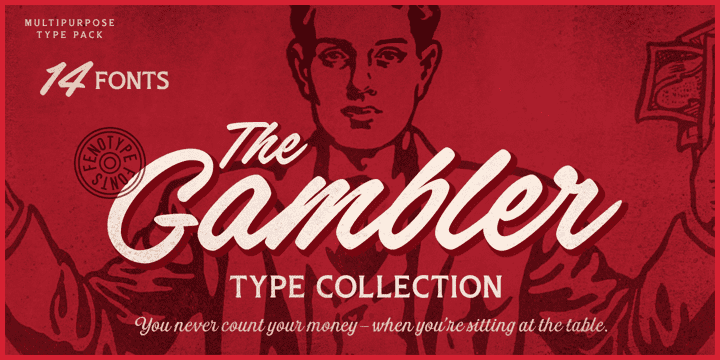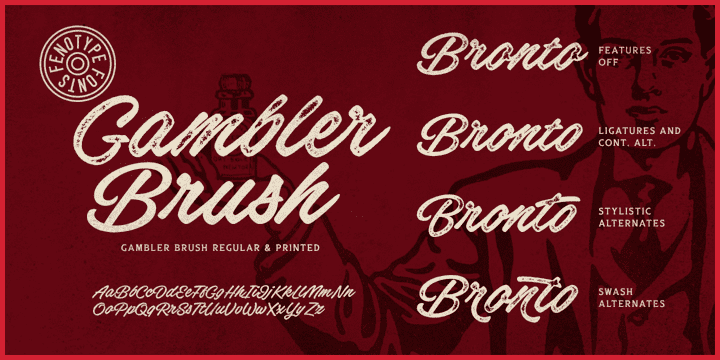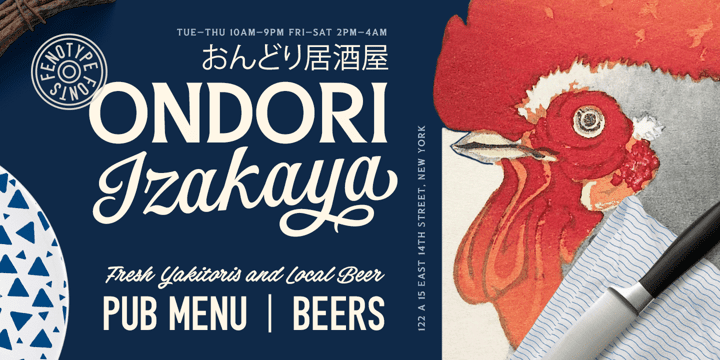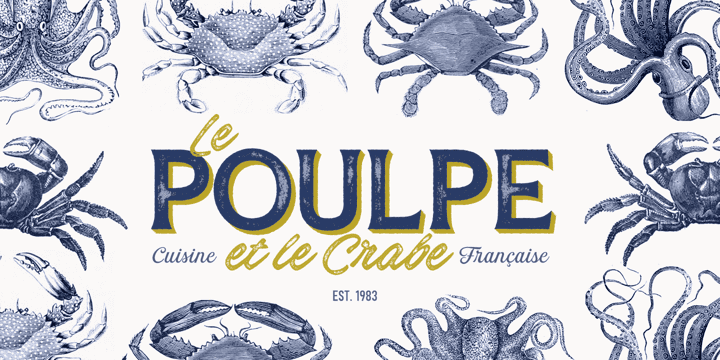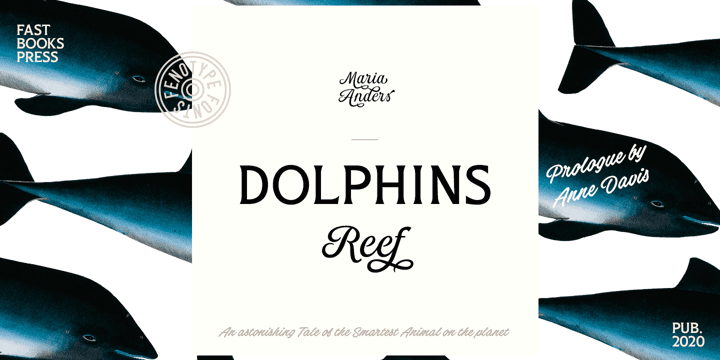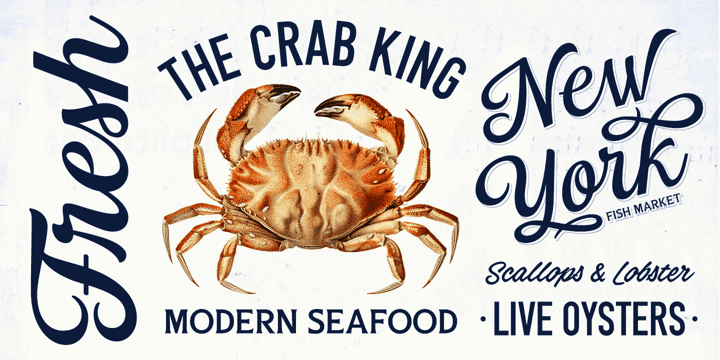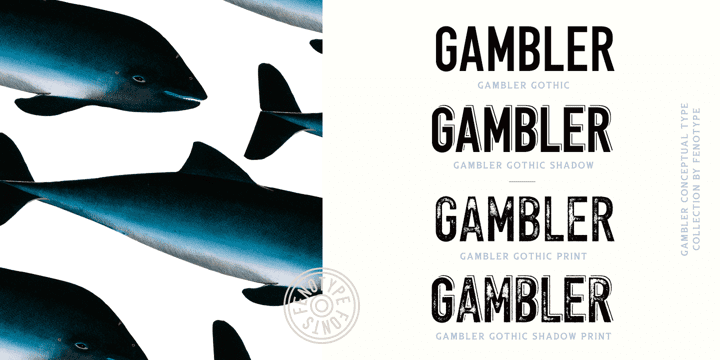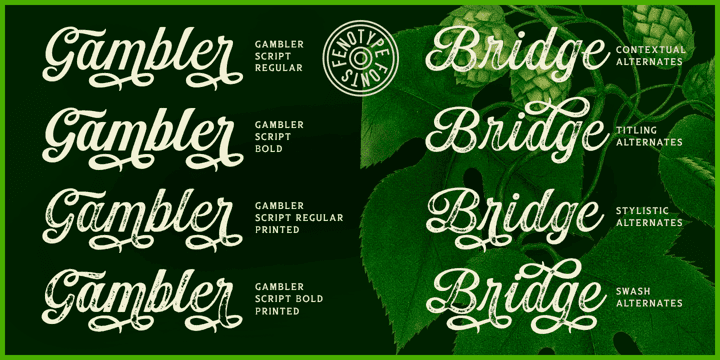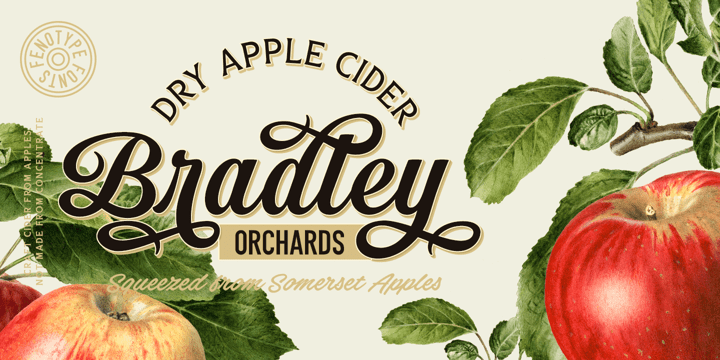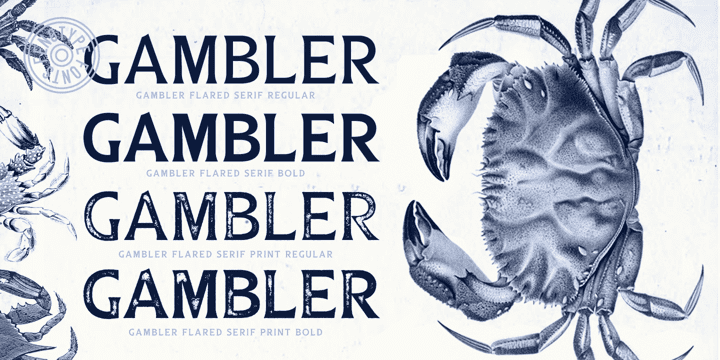
Gambler Complete Family (14 fonts)
Gambler Script is a smooth contrasted script that comes in two weights and it is packed with plenty of OpenType features: Standard Ligatures and Contextual Alternates are automatically on and they help to keep the flow and connections smooth. From Stylistic Alternates you’ll find characters with pointed endings and some other small variations. For extra flair try Swash or Titling Alternates. Gambler Script is PUA encoded so you can access the extra characters in most graphic design softwares.
Gambler Brush is a soft brush script with low contrast and large x-height. Gambler Brush comes with following OpenType features: Standard Ligatures and Contextual Alternates that are automatically on and that keep the connections smooth. For less uneven word picture try Stylistic or Swash Alternates. Gambler Brush is PUA encoded so you can access the extra characters in most graphic design softwares.
Gambler Flare is a flared serif with sharp edges and wide characters Gambler Flare comes in two weights.
Gambler Gothic is a rigid condensed sans serif that comes in two styles: Regular and Shadow. Gambler Gothic Shadow has a narrow lining giving a three dimensional expression to the font.
Gambler fonts are designed to play together, in pairs, or all together but they also work great as themselves or combined with other Fenotype Fonts.